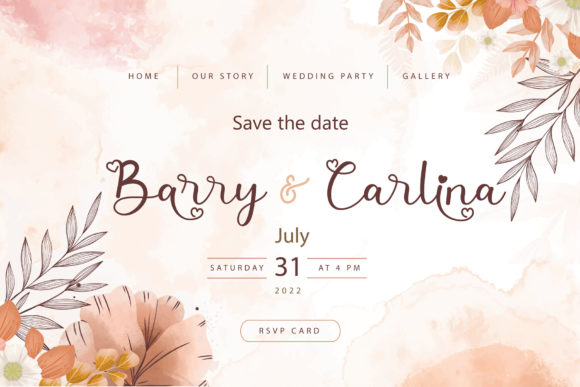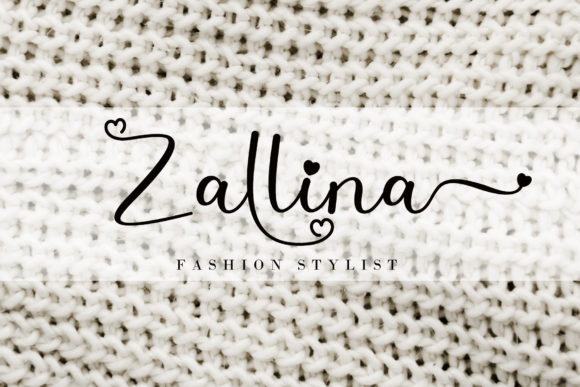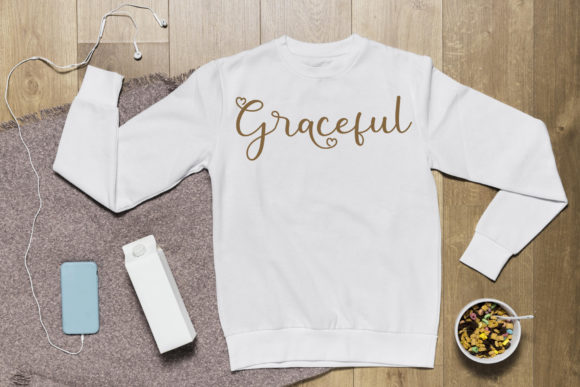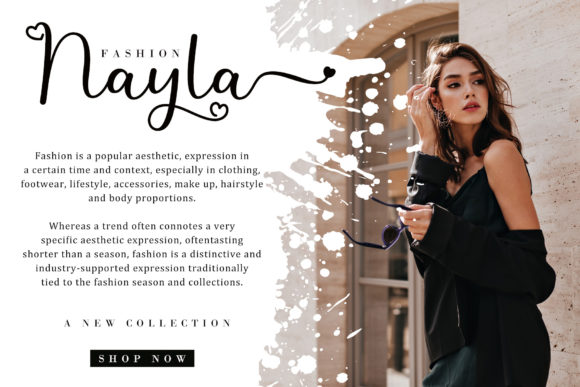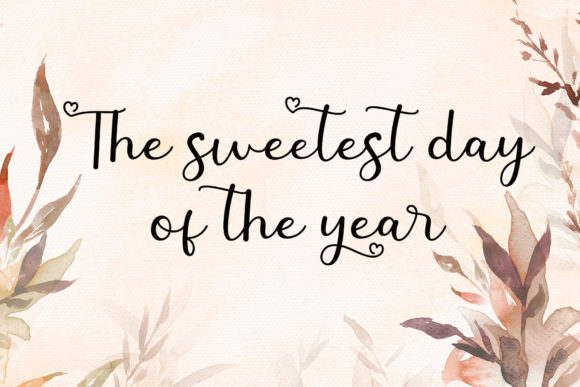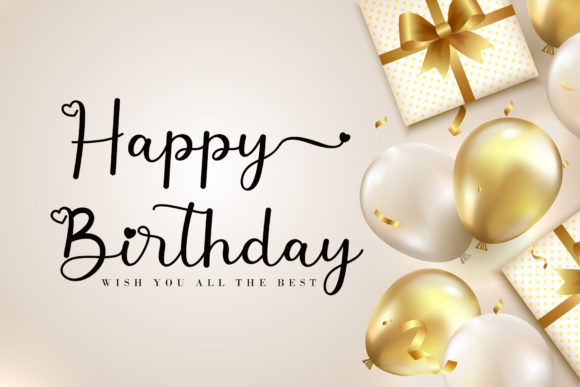
The Almost Valentine Font: A Romantic Script to Steal Your Heart
I’ll never forget the time I was working on a wedding invitation project, and my client asked for a font that would make their special day feel like a fairytale. I scoured the internet, tried out dozens of fonts, but nothing seemed quite right. That was until I stumbled upon the Almost Valentine font. It was love at first sight! 💕
With its beautiful, romantic script and authentic feel, Almost Valentine quickly became my go-to font for all things wedding-related. But its uses don’t stop there. This gorgeous font can be used to create stunning logos, beautiful stationery art, eye-catching social media posts, cute greeting cards, and so much more.
What I Love About Almost Valentine Font
So, what makes Almost Valentine font so special? Here are a few things that I just can’t get enough of:
- ✨ Authentic feel: Almost Valentine has a genuine, handwritten feel that makes it perfect for creating romantic and whimsical designs.
- 💕 Romantic script: The script is beautiful, flowing, and perfect for creating wedding invitations, Valentine’s Day cards, and other romantic designs.
While I adore Almost Valentine font, there are a few small quirks to be aware of:
- ⚠️ Overuse of swashes: While the swashes are gorgeous, using too many can make the text difficult to read. Use them sparingly to add a touch of elegance to your designs.
The Designer Inspiration Behind Almost Valentine Font
The Almost Valentine font was created with love and care by a talented designer who wanted to capture the essence of romance and whimsy. Inspired by vintage love letters and classic scripts, this font is a beautiful tribute to the art of handwriting.
| What is the Almost Valentine font best used for? | The Almost Valentine font is perfect for romantic designs, wedding invitations, Valentine’s Day cards, and other whimsical projects. |